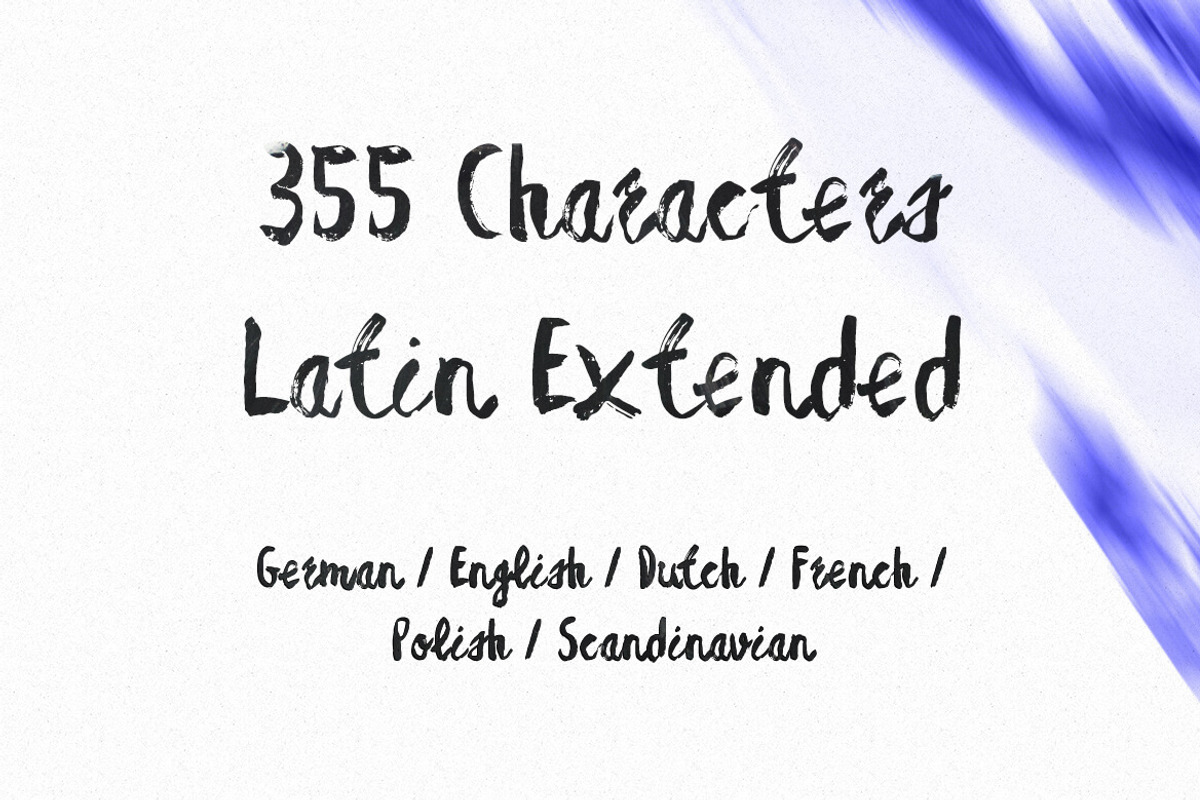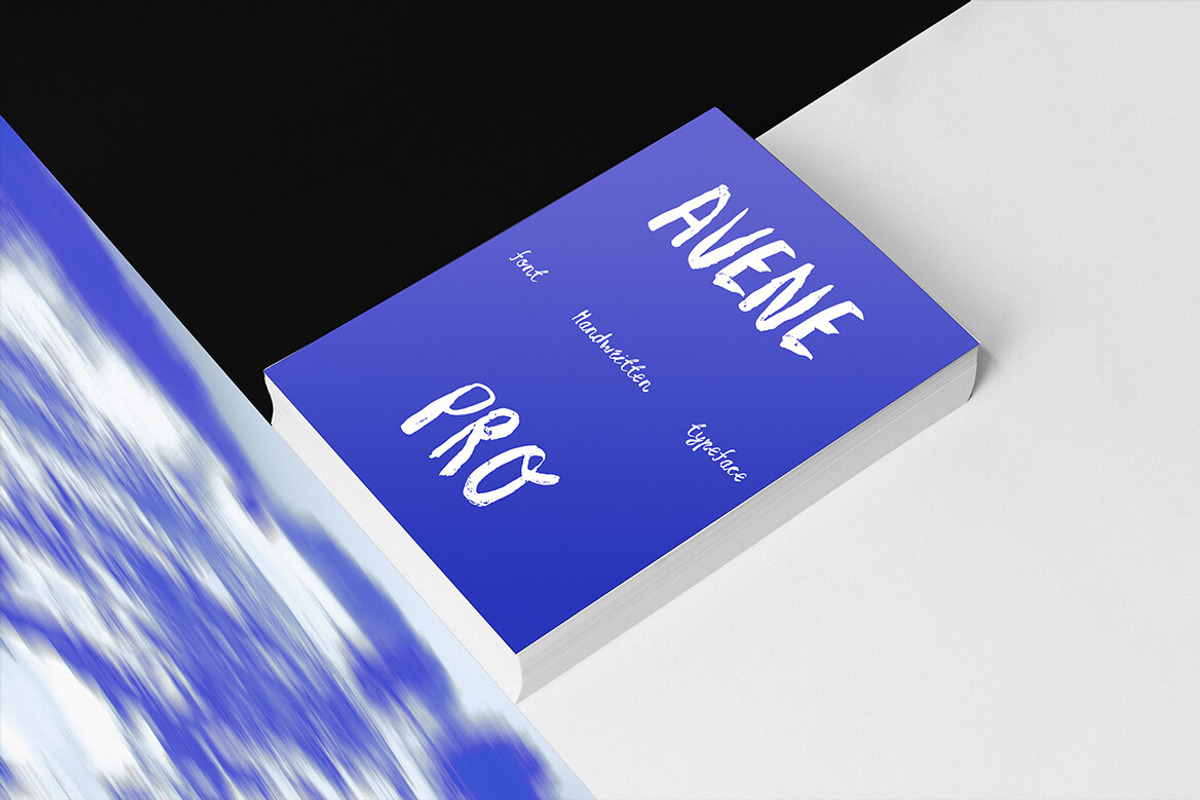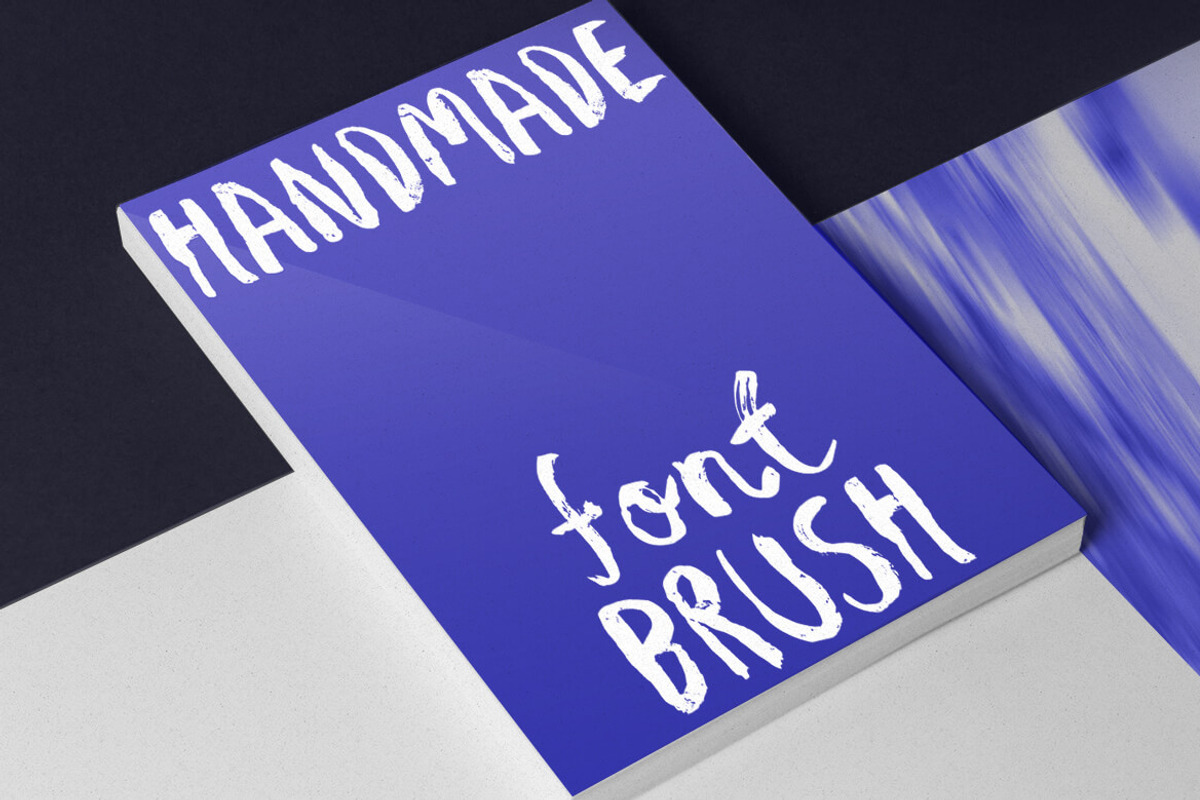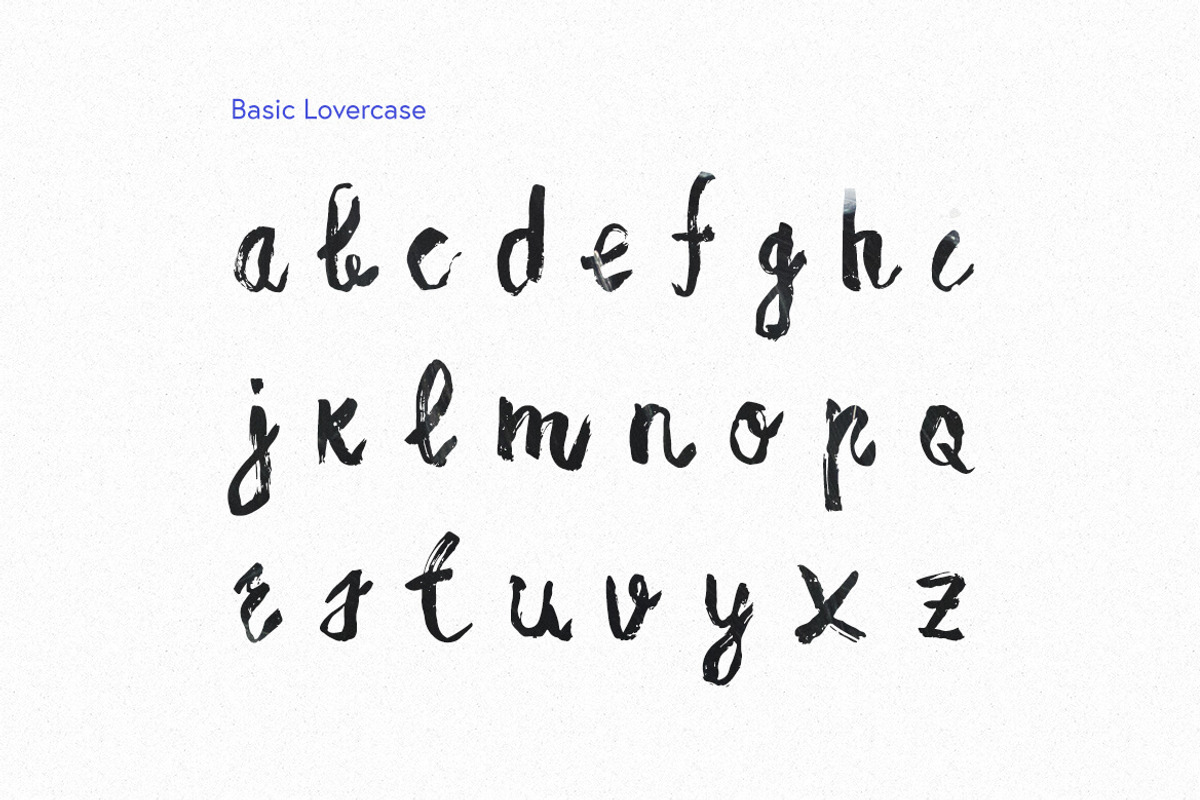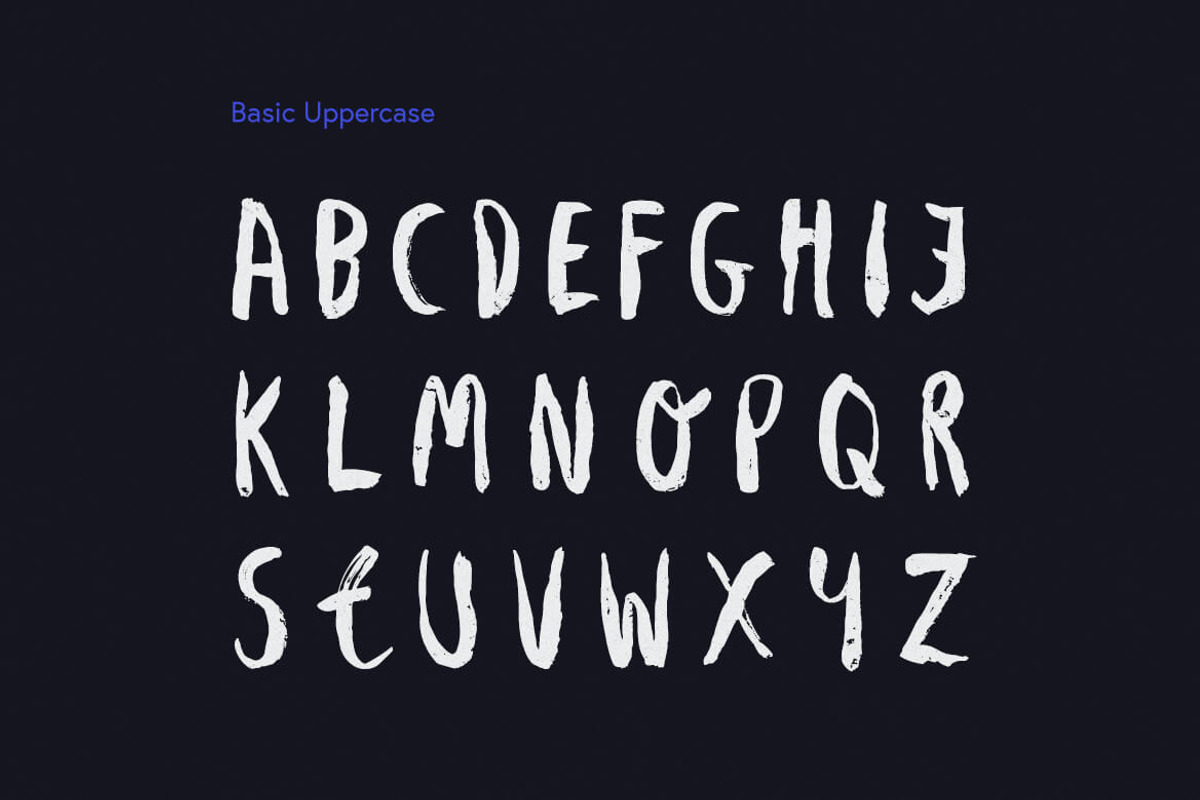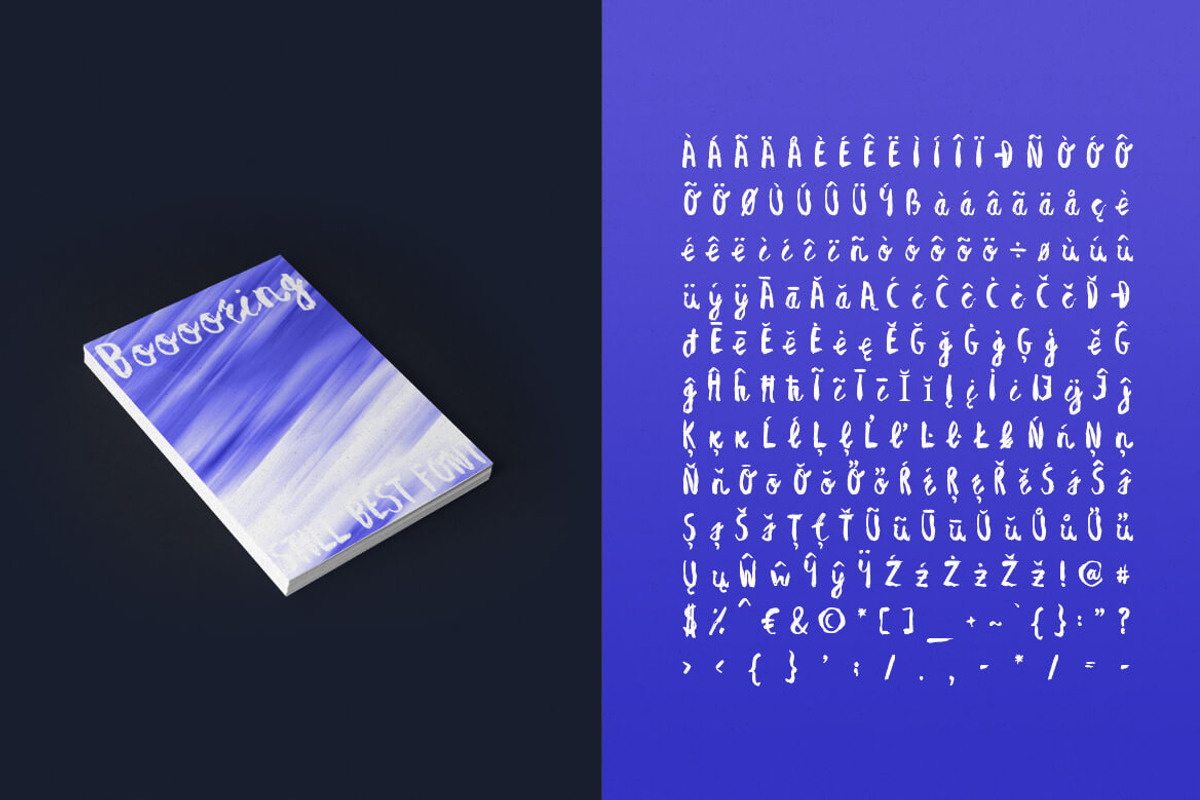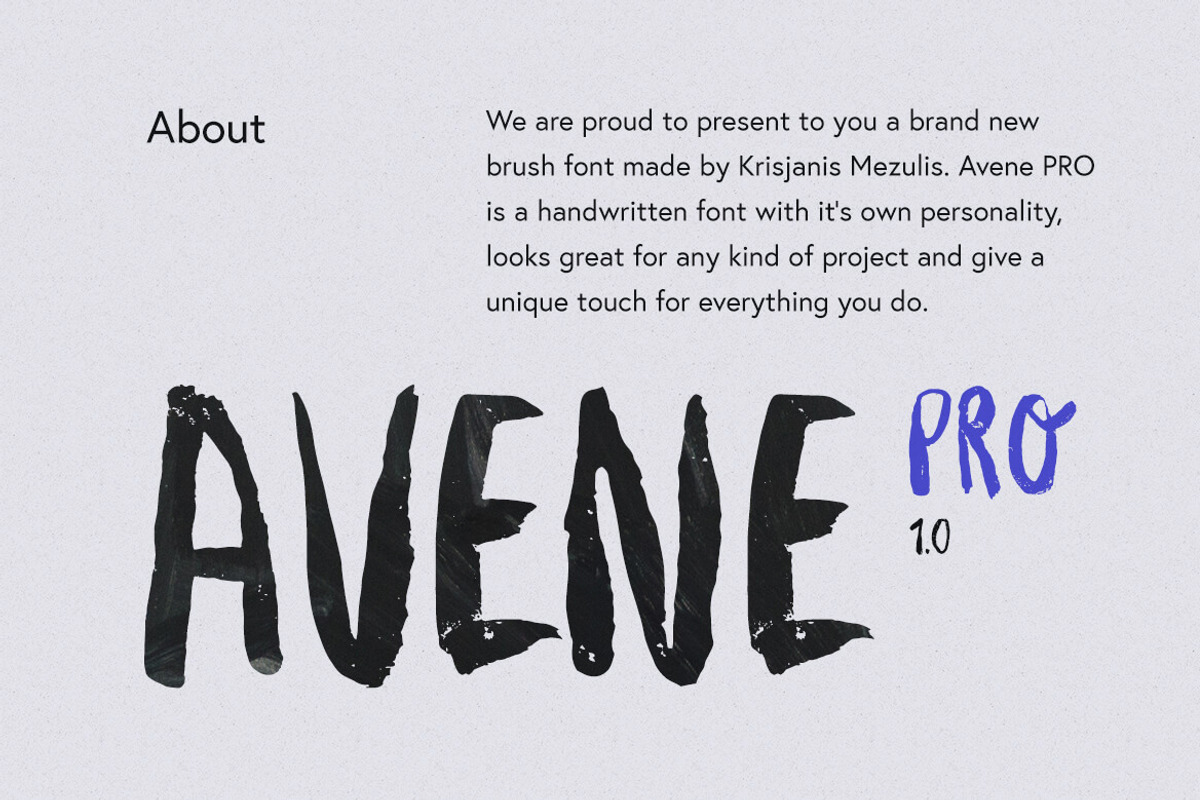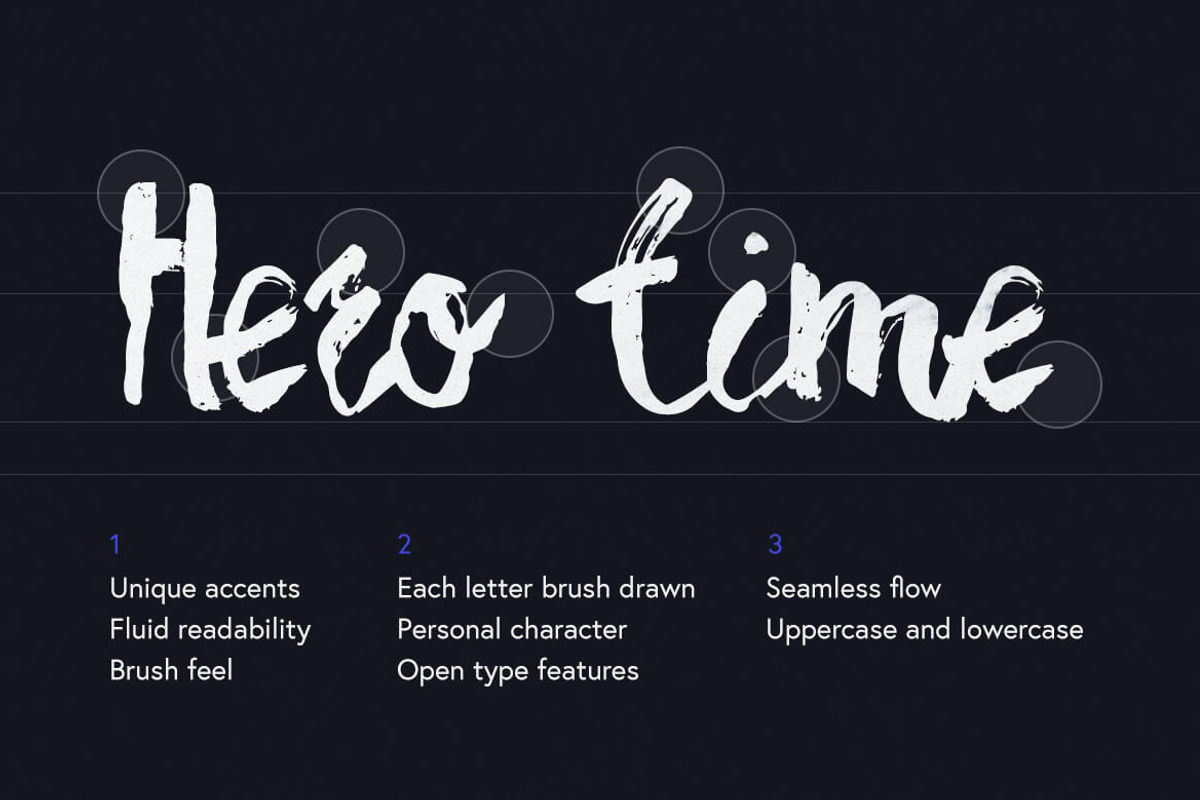
Avene PRO Brush Font
Avene PRO Brush Font by Wild Ones is a font selected for branding, posters, packaging, typography.
- Avene PRO is a handwritten font that contains 350 characters, with it's own personality, looks great for any kind of project and gives a uni
- The font features both uppercase and lovercase letters, so you will have a wide range of characters to use in tyographic work.
- It has updated open type features and adwanced kerning.
Why Avene PRO Brush Font is worth a look
Avene PRO Brush Font by Wild Ones fits naturally into Branding, posters, packaging, typography.